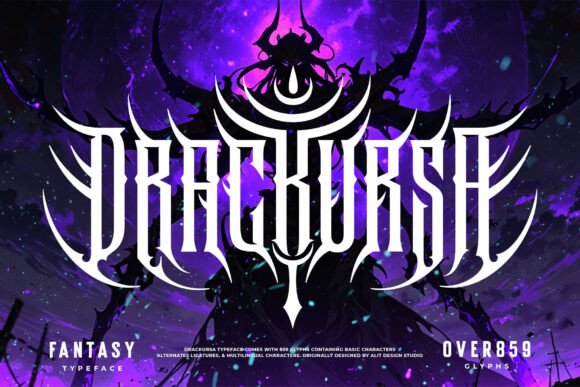
Drackursa Typeface: A Bold Font for Dark Creativity
Typography is more than just a means of communication—it's an artistic expression that shapes the visual identity of your message. For creators who want to channel intensity, rebellion, and raw energy into their designs, Drackursa Typeface offers a powerful solution. Inspired by the dark, visceral aesthetic of modern death metal, this font stands out with its aggressive yet intricate design. Every character in Drackursa is sculpted with sharp, thorn-like edges and menacing curves reminiscent of demonic horns, making it a perfect fit for projects that demand a fearsome presence.
The Design Philosophy Behind Drackursa
Drackursa isn’t just another bold typeface; it’s a statement. Its design merges the chaos of death metal culture with gothic influences, resulting in a look that feels both ancient and contemporary. The jagged spikes and sinuous forms are not just decorative—they serve as a visual metaphor for power and disruption. This makes Drackursa ideal for anyone looking to break through the noise and leave a lasting impression.
What sets Drackursa apart is its ability to maintain readability despite its fierce appearance. While many horror or punk fonts become illegible at smaller sizes, Drackursa retains clarity even when scaled down. However, it truly shines when used in large formats—album covers, posters, headers, and banners—where its details can be fully appreciated and its impact maximized.
Real-World Applications of Drackursa
Whether you're a graphic designer working on an album cover for a death metal band or a marketer crafting a high-energy promotional campaign, Drackursa brings a unique edge to your work. Here are some practical use cases where this typeface excels:
Adapting Drackursa for Different Audiences and Goals
One of the strengths of Drackursa is its versatility across different creative contexts. How you use it depends largely on your audience and objective. Let’s explore how various professionals can harness its potential:
For Graphic Designers
If you're designing for a client in the extreme music scene or creating visuals for a horror-themed project, Drackursa can elevate your work from standard to standout. Combine it with textures like blood splatters, rust, or grunge to enhance the atmosphere. Remember to balance its intensity with complementary elements—too much aggression can overwhelm a design.
For Marketers and Advertisers
Use Drackursa sparingly but strategically in marketing materials aimed at edgy demographics. It could be the headline of a limited-edition product launch or part of a themed campaign for a video game, action movie, or underground festival. Make sure the rest of your typography remains legible so the message doesn't get lost in the chaos.
For Educators and Content Creators
In educational settings, especially those covering topics like art history, typography, or subcultures, Drackursa can serve as a teaching tool. Discuss how font choice affects perception and mood, and let students experiment with incorporating it into their own projects. For bloggers and YouTubers focusing on horror, metal, or alternative lifestyles, it can be a compelling way to visually reinforce content themes.
For Entrepreneurs and Small Business Owners
Entrepreneurs launching a new brand in the alternative lifestyle space—such as a candle company with a gothic twist or a clothing line inspired by rebellion—can use Drackursa to build a strong visual identity. Apply it to packaging, website headers, or social media posts to make your brand feel bold and unapologetically unique.
Design Tips for Using Drackursa Effectively
To ensure your use of Drackursa is effective and memorable, consider these tips:
1. Use it for Impact, Not Entirety: While Drackursa is intense, it’s best reserved for key text elements like headlines, titles, or taglines. Avoid using it for body copy, as it may hinder readability.
2. Pair with Strong Visual Elements: This font thrives alongside dark, moody visuals. Think shadows, fire effects, or abstract textures. These pairings amplify its aggressive tone and create a more immersive experience.
3. Experiment with Color: Though typically paired with black or red, don’t shy away from unconventional color choices. Try metallic shades, deep purples, or even green hues to match specific moods or branding needs.
4. Stay Consistent in Application: When using Drackursa in multiple pieces (like a series of gig posters), keep its usage consistent to maintain a unified brand identity. Adjust size and weight only when necessary to suit the format.
5. Test Across Platforms: Before finalizing any project, test how Drackursa appears on different screens and print formats. Ensure it looks sharp and clear whether viewed online or in person.